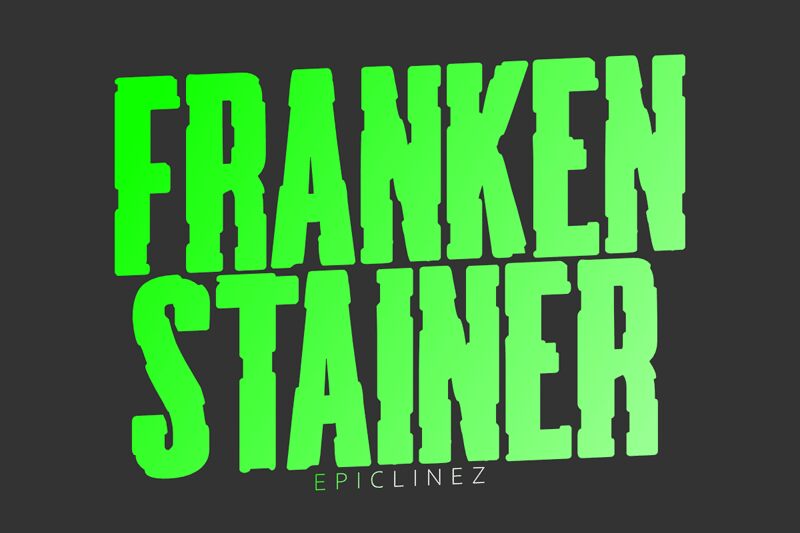
Frankenstainer, an eroded display font by epiclinez, brings a hauntingly unique touch to your projects. With its rugged and worn-out appearance, this font is perfect for horror movie posters, Halloween-themed designs, and gothic-inspired merchandise. The extra-condensed width adds a sense of compactness and intensity to your text, making it ideal for creating impactful headlines or eye-catching logos. Whether you're working on a spooky event flyer or designing an eerie album cover, Frankenstainer will surely give your project an edge with its distinctive eroded style. Unleash the dark creativity within with this captivating typeface!